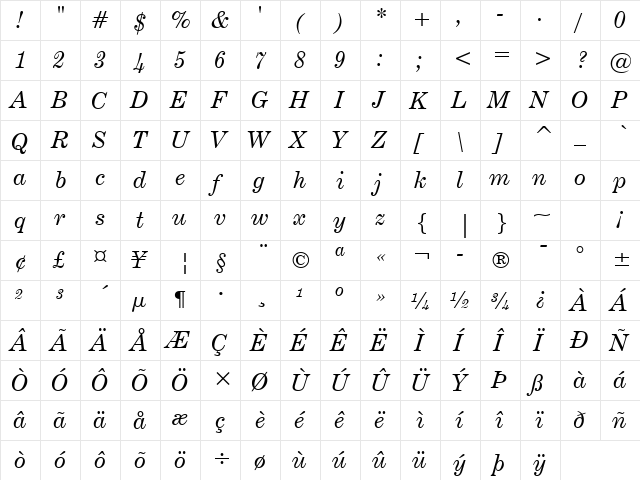
CenturyExpd BT Italic Font Preview
CenturyExpd BT Italic
Design Context for CenturyExpd BT Typeface
CenturyExpd BT takes a measured approach to typography — its balanced proportions and neutral character make it a reliable workhorse for both digital and print work. The slanted form adds forward momentum and visual energy.
Pro Tip: Try CenturyExpd BT for annotation and caption copy alongside an upright companion — the contrast in angle creates a dynamic but ordered typographic system.